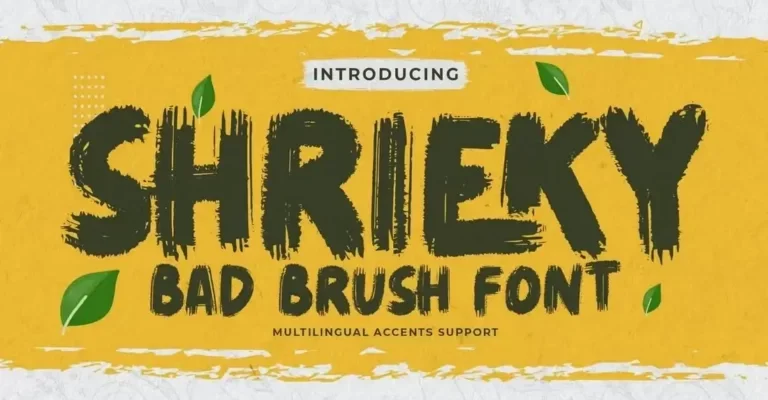
10+ Best Free Procreate Fonts | Premium Procreate Fonts
Searching for premium and free procreate fonts? In this post, We handpicked some best free procreate fonts that you can use in your art, designs, and more.
There are a few different Procreate fonts that you can use in your artwork. They come in calligraphy, tattoo, comic, brush, and more styles, and each has its own unique look that can add a little extra flair to your creations.
The Regular Procreate font is perfect if you’re looking for a basic, classic look. It’s easy to read and looks great on any type of artwork. The other modern stylish Procreate font is perfect if you want to add a bit of extra oomph to your designs. It’s got a more pronounced style and is perfect for creating bold, impactful visuals.
Quietly Endure Chunky Procreate Font (Free)
Quietly Endure a playful and chunky free procreate font. The font includes more than 150 glyphs and all the characters.
Unicosmo Procreate Decorative Sans Font Duo
Unicosmo is a decorative handwritten sans serif font. This font comes with bold patterns stroke, a fun character with a bit of ligature, and alternates.
Mailbag – Procreate Playful Chalk Font
The Mailbag is a handwritten fun and casual display font suited for kids, playground, or school theme designs.
Lemon Jelly – Procreate Calligraphy Font (Free)
Lemon Jelly is a free procreate calligraphy font with numerous glyphs, uppercase, and lowercase letters.
Red Carrot – PlayFul Procreate Font
The Red Carrot is a playful handwritten procreate font that features tall and narrow letters with simple designs.
Little Pea – Creative Font For Procreate
Little Pea is a fun and cute little handwritten procreate font that comes with four weights light, regular, medium, and bold.
Cassandra – Handwritten Font For Procreate (Free)
Cassandra is a beautiful handwritten font that you can add to ProCreate for free.
Paintoura – Playful Typeface Font For Procreate
Paintoura is a modern display playful font for procreate. Create beautiful playful titles in propcreate.
Aliestar – Procreate Font For Children Artwork
Aliestar is a cute and playful handwritten font by KrakenBox. You can use this font to create artworks related to children.
Kelsi – Graffiti Style Bubble Font For Procreate (Free)
Kelsi a unique bubble-themed letter designs font for procreate. This free product features both filled & outlined versions. You can use this font for free with personal and client projects.
Wayhonk – Procreate Rough Display Typeface Font
Wayhonk a all caps font perfect for title and heading. This procreate rought display font make your artworks look extra tough.
Shrieky – Procreate Creative Brush Font
This font SHRIEKY is great for your next creative project authentic brush and relaxed characteristic add more natural look to your text.
Bunch Blossoms Procreate Handwritten Font (Free)
Bunch Blossoms a free handwritten font for procreate. Create beautiful arts and and designs using this free procreate font.